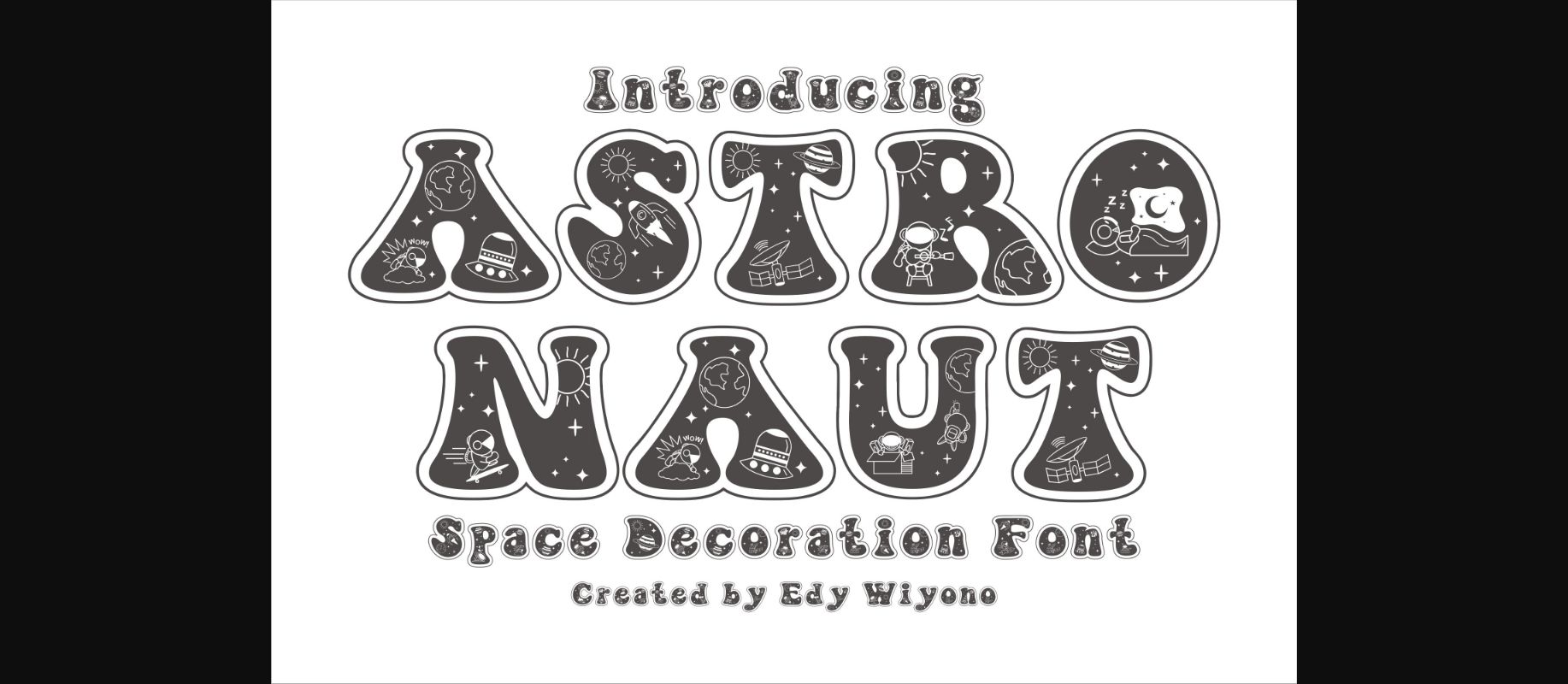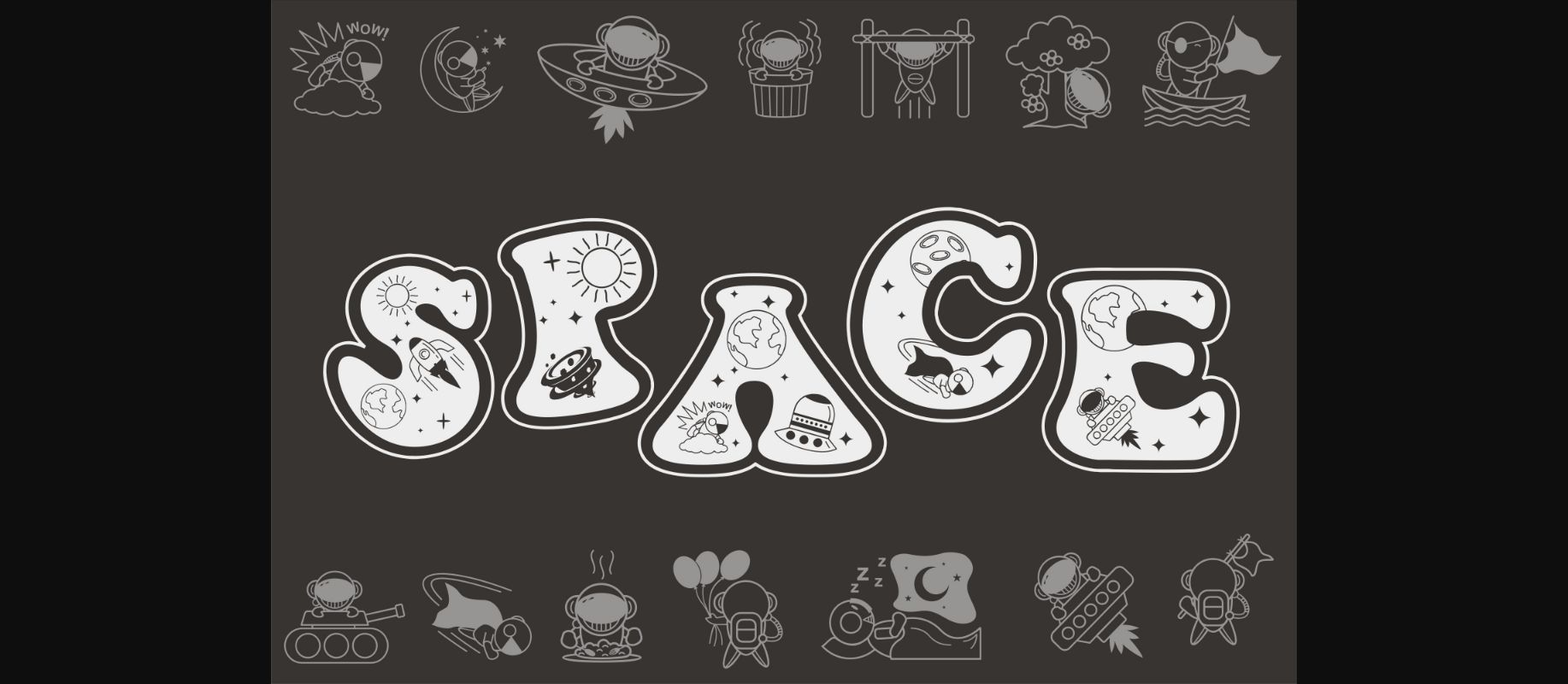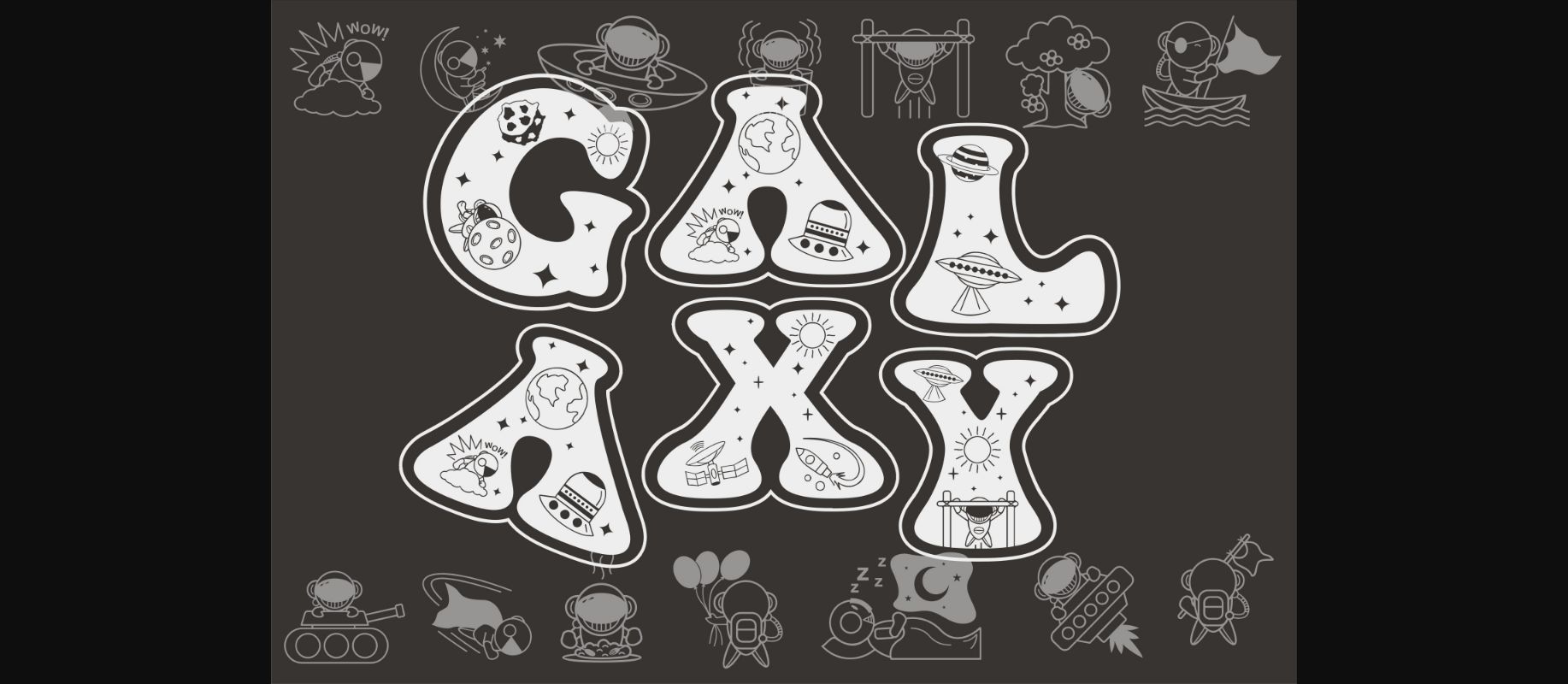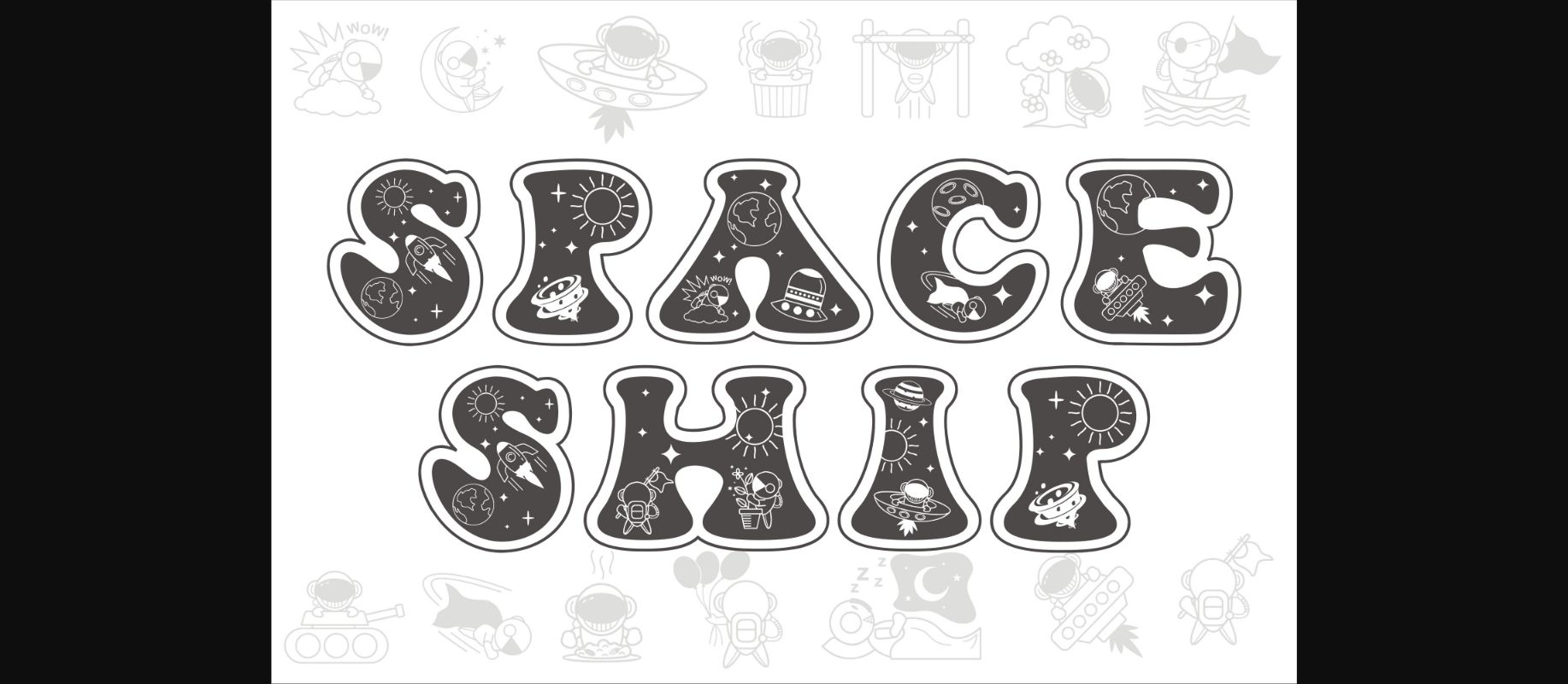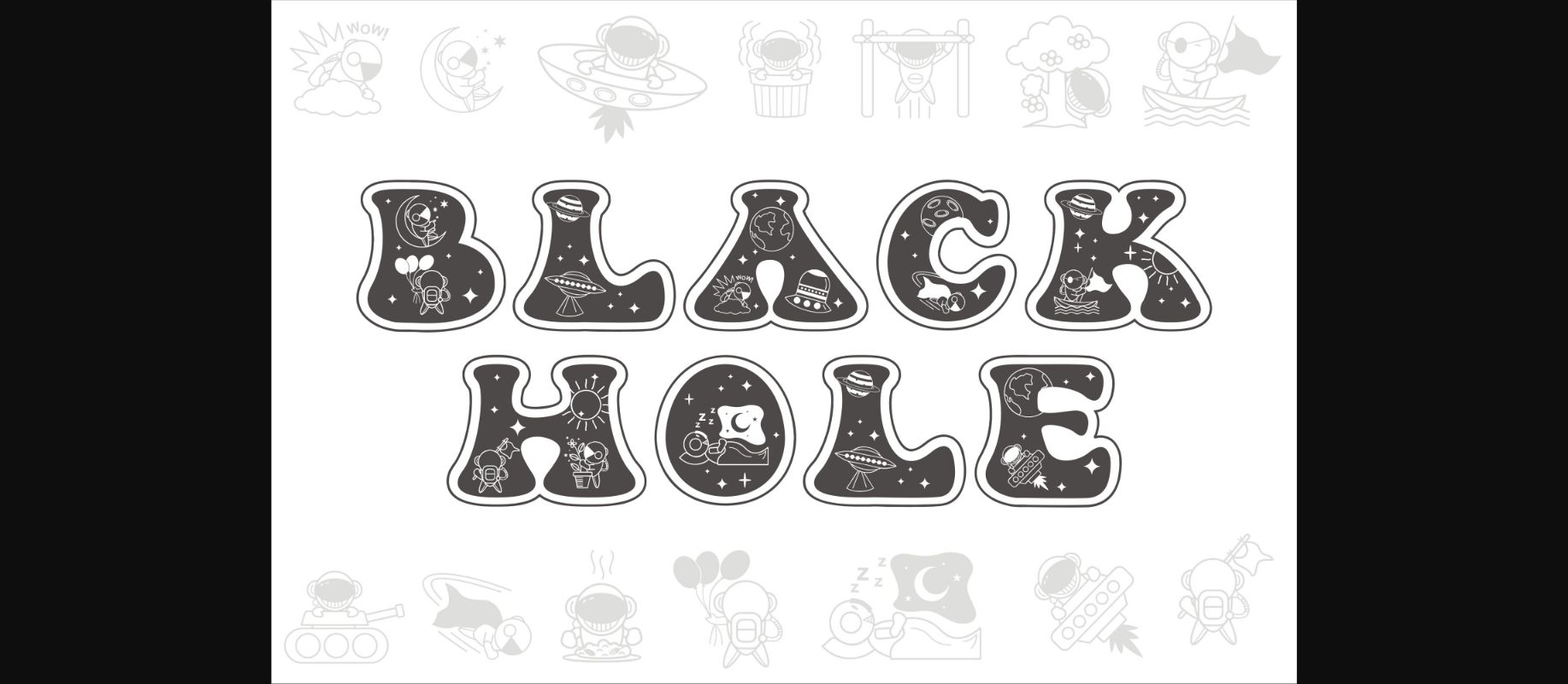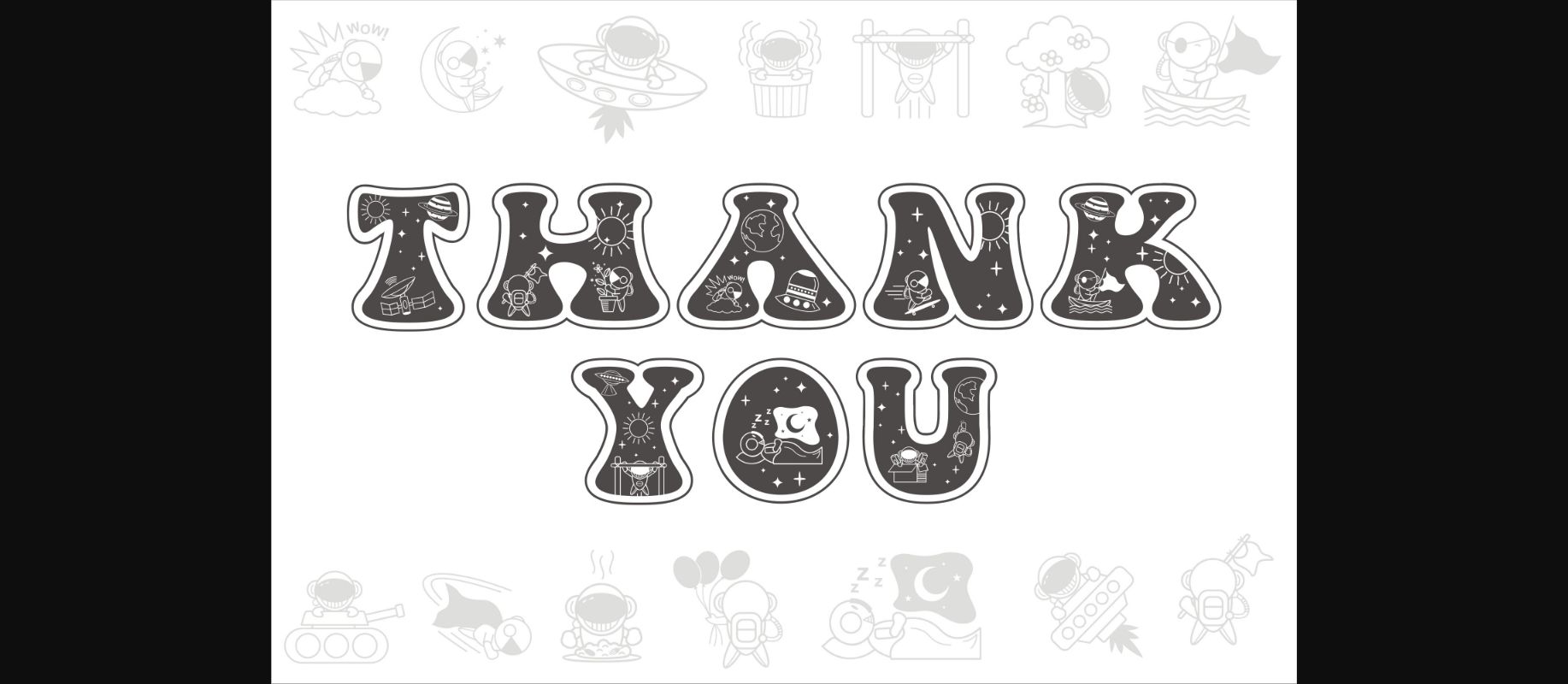
Astronaut Font
About Astronaut Font
Astronaut is a cute font with themes and cartoon characters with astronauts and our planet. This font is very cute and attractive for an astronomy education-themed design and is perfect for children’s themes. Immediately complete your project with an attractive font.